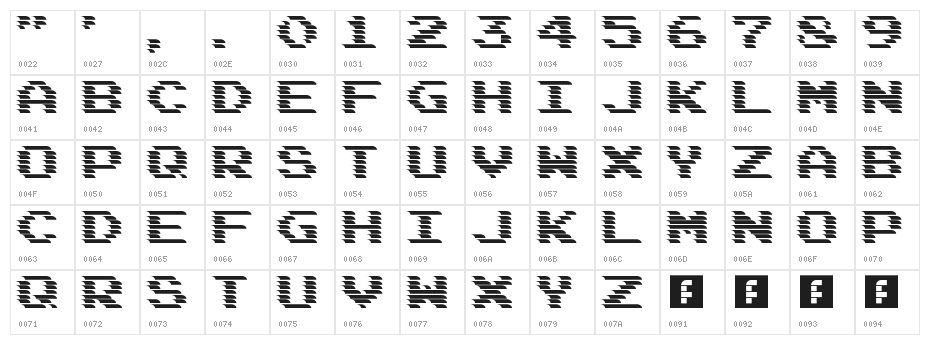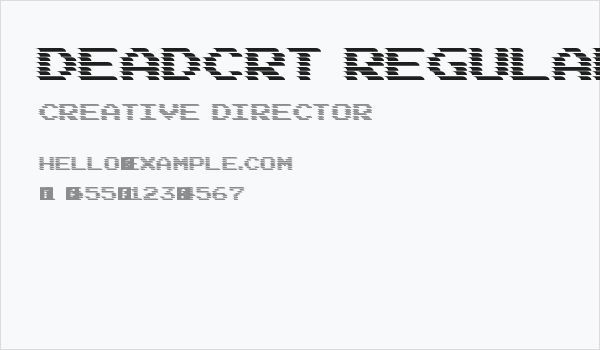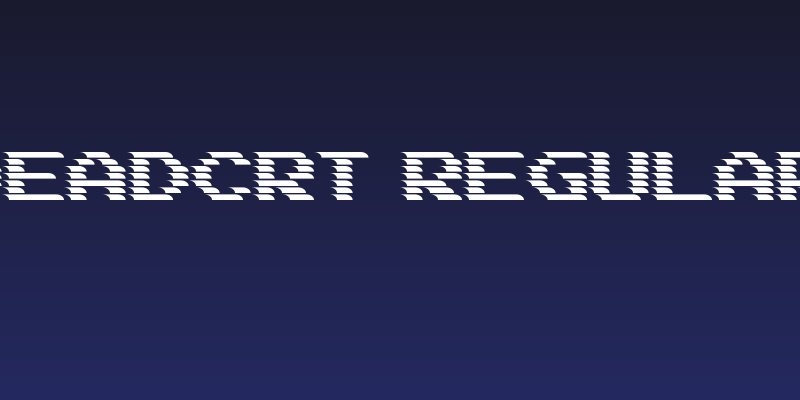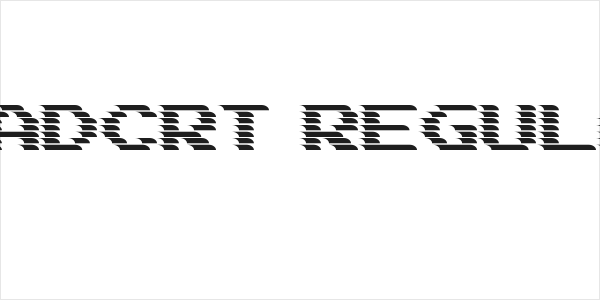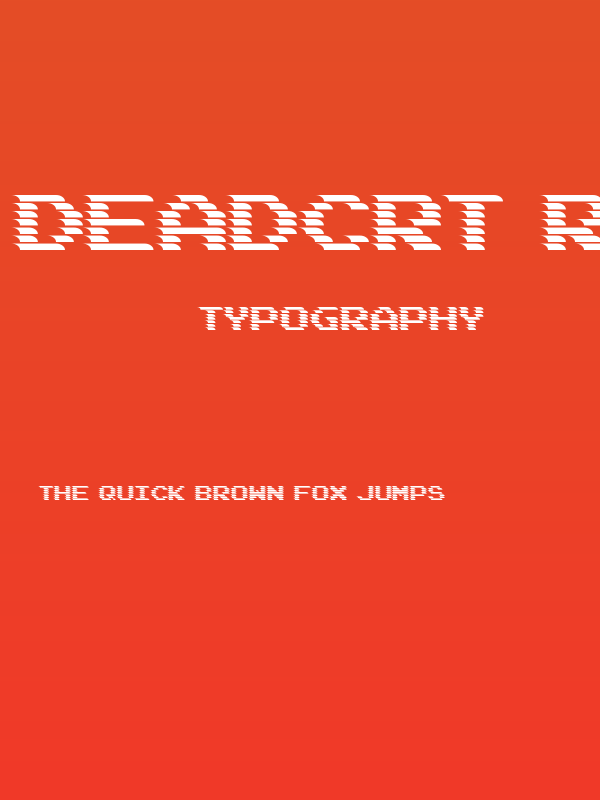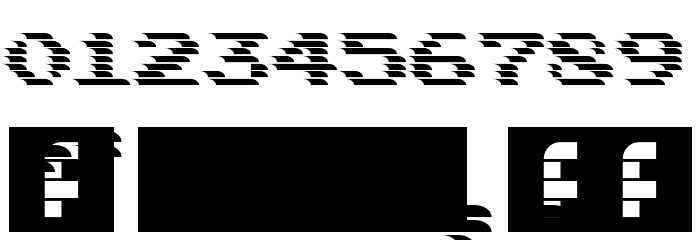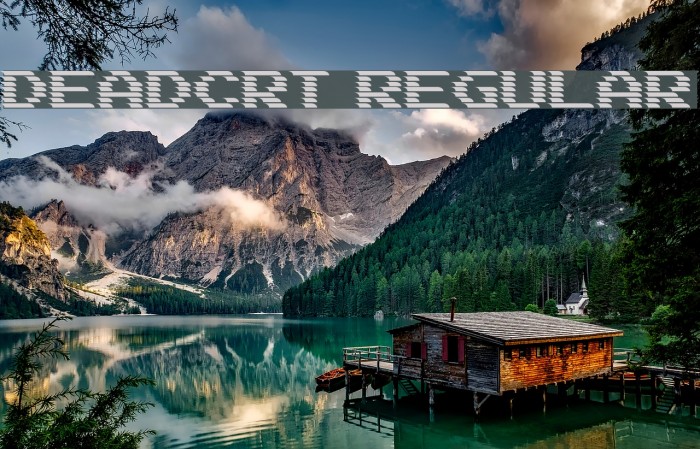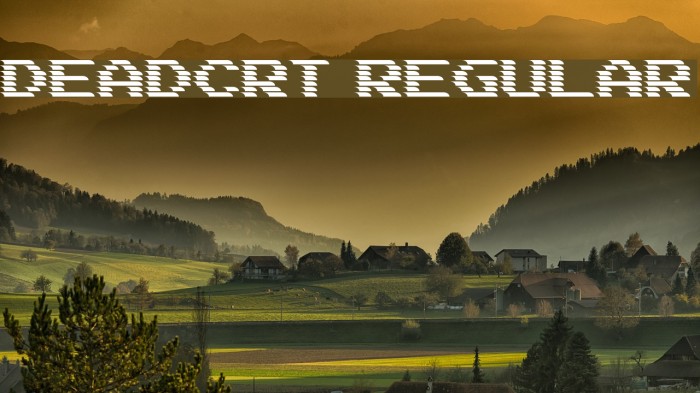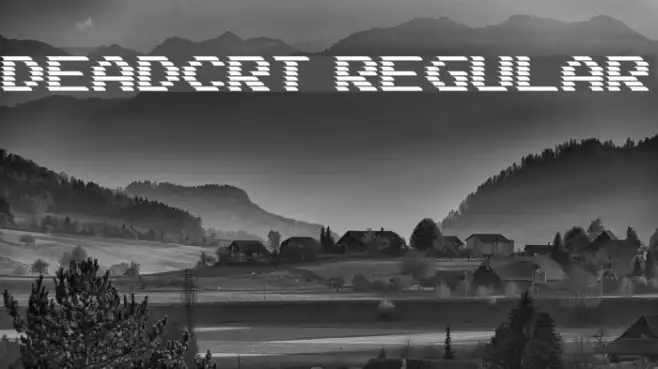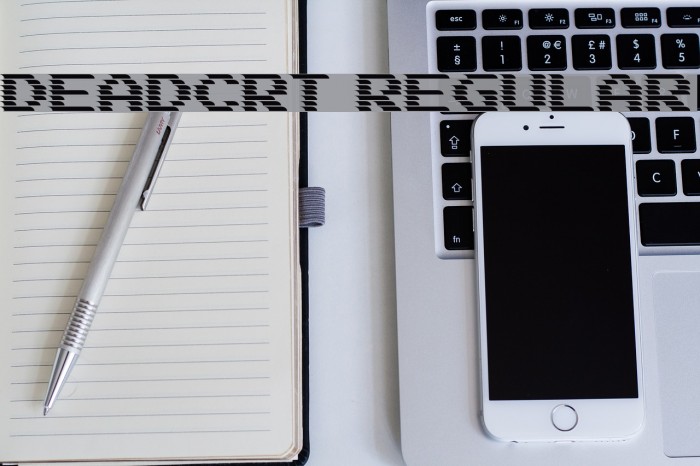
DEADCRT Regular Font
DEADCRT Regular Description
This font features a distinctive, glitch-inspired design that mimics the appearance of a digital screen with horizontal lines cutting through each character. The uppercase and lowercase letters, as well as numbers, maintain a consistent style that evokes a sense of digital distortion or interference. The characters are bold and striking, making them ideal for attention-grabbing designs. The unique aesthetic is reminiscent of retro computer graphics, offering a modern twist on a vintage theme. The special characters are also designed with the same glitch effect, ensuring a cohesive look across all elements.
| Proposed Projects | Ideal for digital art projects, tech-themed posters, video game graphics, and futuristic branding. |